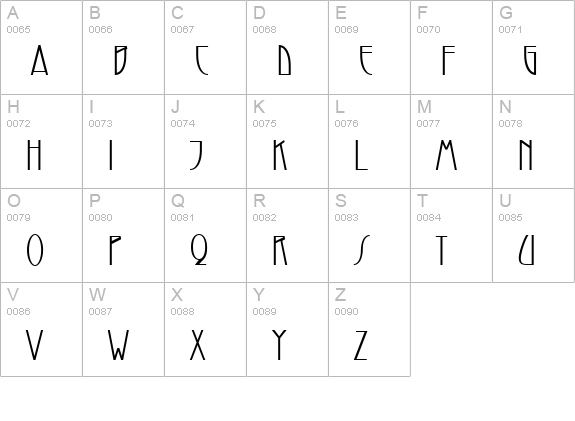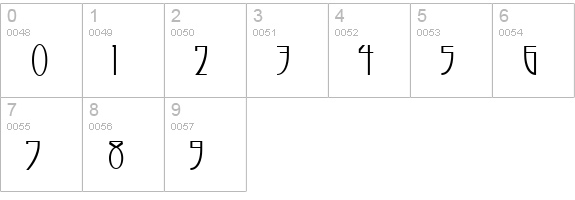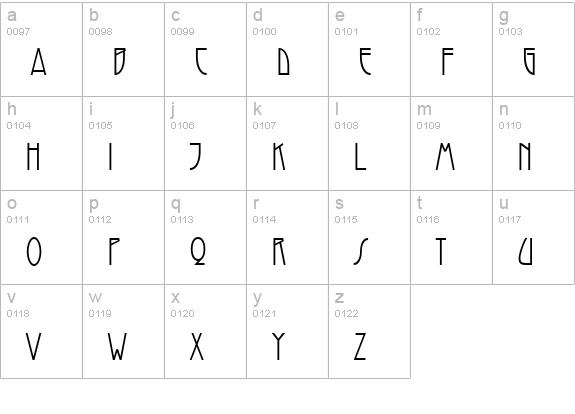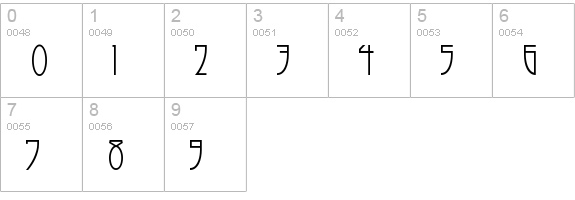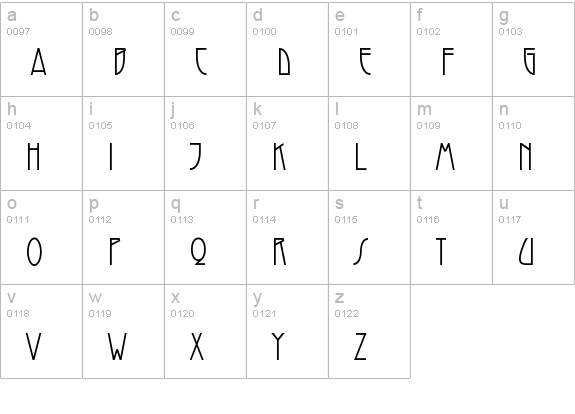
Modernist Nouveau Font Details
Introducing the exquisite Modernist Nouveau font, a stunning blend of modernist aesthetics and art nouveau elegance. This unique typeface beautifully captures the essence of both artistic movements, creating a truly captivating design that is sure to make a statement in any project. The Modernist Nouveau font features sleek lines, intricate details, and a sense of sophistication that sets it apart from traditional fonts. With its seamless combination of classic and contemporary elements, this font is perfect for adding a touch of refinement to your designs. Whether you're working on branding, editorial projects, invitations, or any other creative endeavor, the Modernist Nouveau font will bring a sense of style and flair that is unmatched. Best of all, this exceptional font is available for free download at FontsMarket.com. Now you can easily access this exquisite typeface and elevate your designs with its unique charm. Don't miss out on the opportunity to add the Modernist Nouveau font to your collection and bring a touch of timeless beauty to your projects.